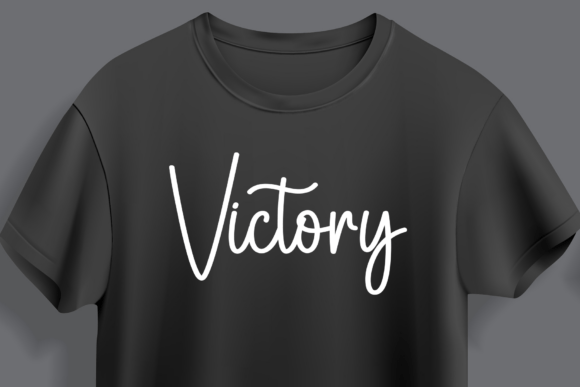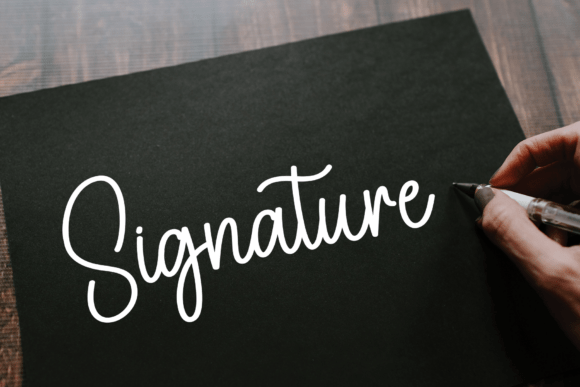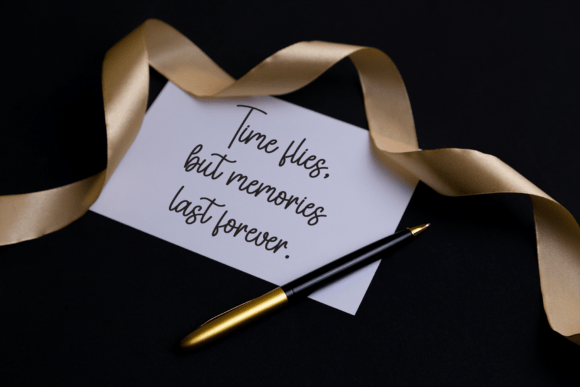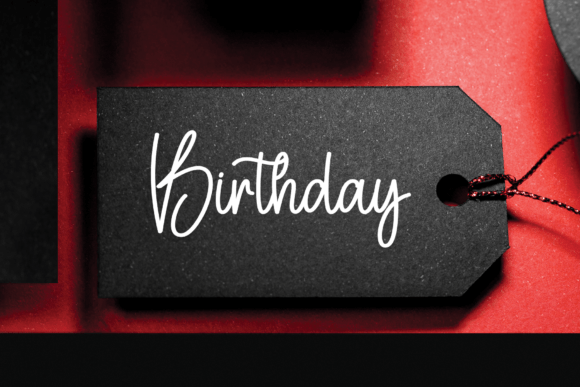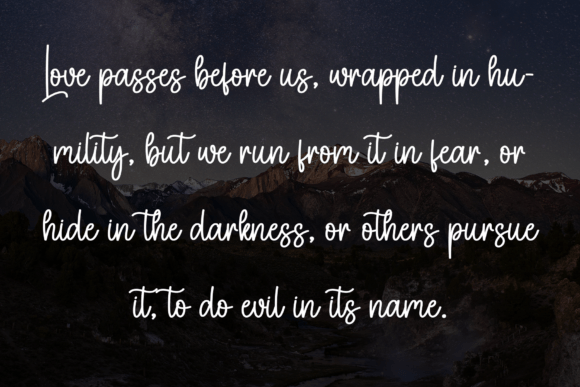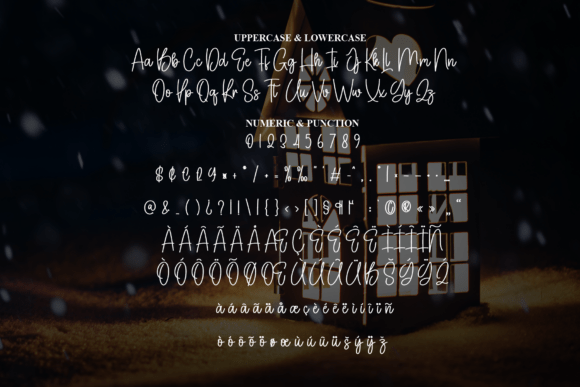
Introduction to Midnight December Font
As a designer, you know the feeling of being in the zone, surrounded by inspiration and creativity. It’s the moment when the perfect font can elevate your project from good to great. For many of us, that moment comes when the clock strikes midnight, and the world is bathed in a soft, magical light. It’s the perfect time to unleash your creativity, and that’s exactly what the Midnight December Font is all about.
This high-quality font is a game-changer for any creative project, from wedding invitations to product packaging. With its elegant, handwritten style, it’s perfect for adding a touch of sophistication to your designs. Whether you’re a seasoned pro or just starting out, the Midnight December Font is a valuable resource that will take your work to the next level.
What sets the Midnight December Font apart is its versatility. With a transparent background and a wide range of uses, it’s the perfect addition to any design arsenal. And the best part? It’s available for free download, making it a must-have for any designer looking to take their work to the next level.
Key Features of Midnight December Font
- High-quality, elegant font design perfect for creative projects and design resources.
- Features a transparent background, ideal for use on images, logos, and other graphics.
- Includes a comprehensive character set, covering a wide range of languages and characters.
- Unique, handwritten style with subtle flair and texture, adding a touch of personality to any design.
Honest Review: Midnight December Font
I recently stumbled upon the Midnight December Font and was blown away by its unique charm. As a designer, I’m always on the lookout for high-quality design resources that can elevate my creative projects. This font definitely fits the bill.
- ✨ Beautiful, elegant script design that adds a touch of sophistication to any project
- ✨ Clear, easy-to-read letters that make it perfect for body text or titles
While the Midnight December Font is a great addition to any design arsenal, there are a few limitations to consider:
Overall, I’m thoroughly impressed with the Midnight December Font. Its unique design and high-quality construction make it an excellent choice for designers working on creative projects. With a little creativity, its limitations can be easily overcome. I highly recommend giving it a try!
Midnight December Font
The Midnight December Font is a high-quality design resource perfect for any creative project. This elegant font features a transparent background, making it ideal for various applications.
Tips for Getting the Most Out of Midnight December Font
For optimal results, use the Midnight December Font in conjunction with other design elements that complement its elegant and sophisticated style. Experiment with different font sizes, colors, and arrangements to achieve the desired effect.
The Midnight December Font is perfect for various applications, including: wedding invitations, holiday cards, business presentations, and social media graphics. Its elegant and sophisticated style makes it ideal for any creative project that requires a touch of luxury and sophistication.